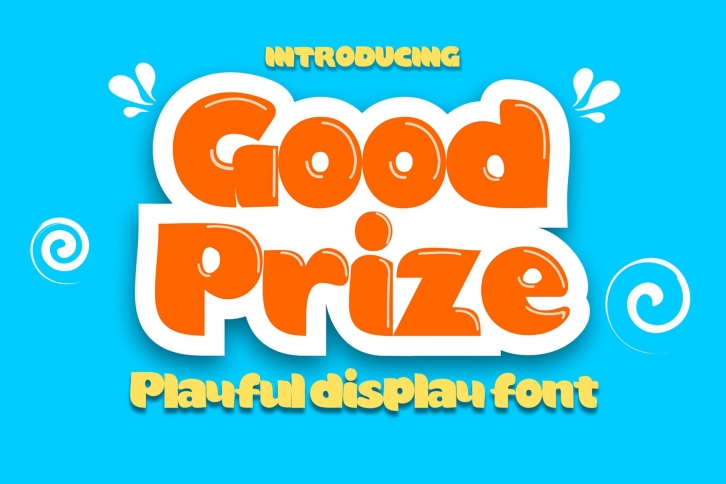
Good Prize is a gorgeous font that was realeased on June 26, 2020. The font can be used in many style contexts and design environments. Perfect for invitations, magazines, websites, logos, and more! It was designed by cikareotype and the file size is 8.61 MB. Thanks for checking out this font!